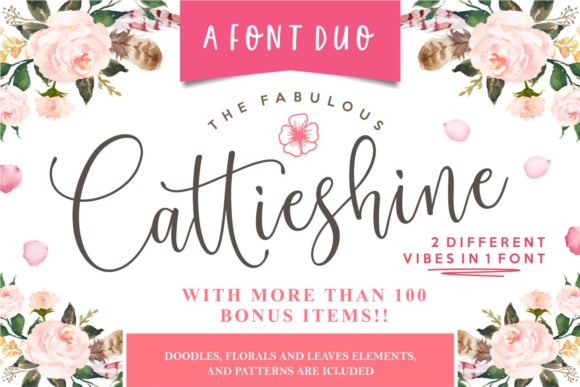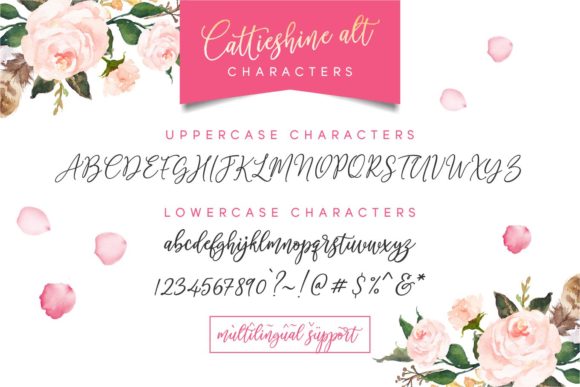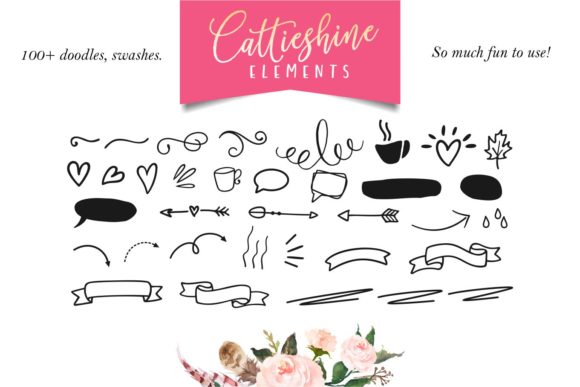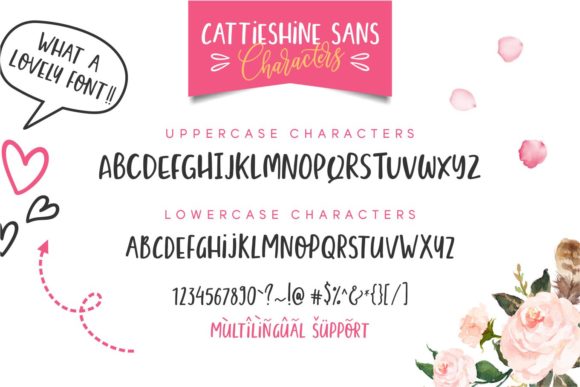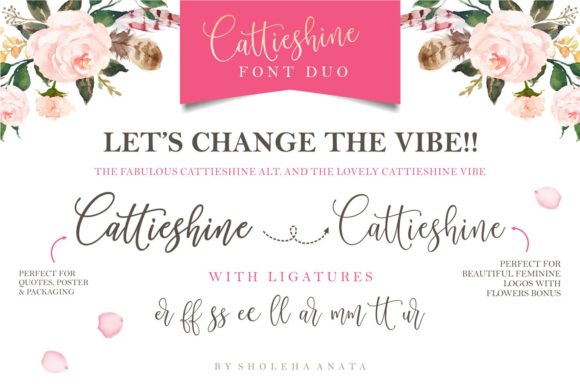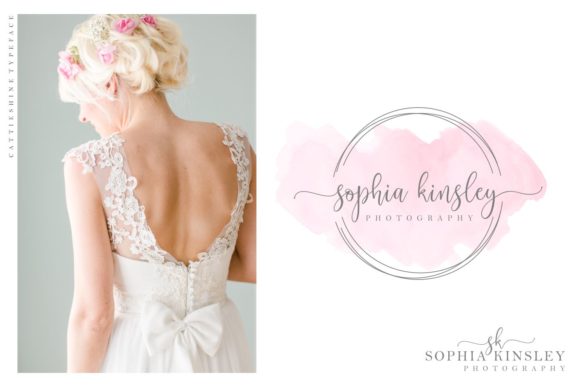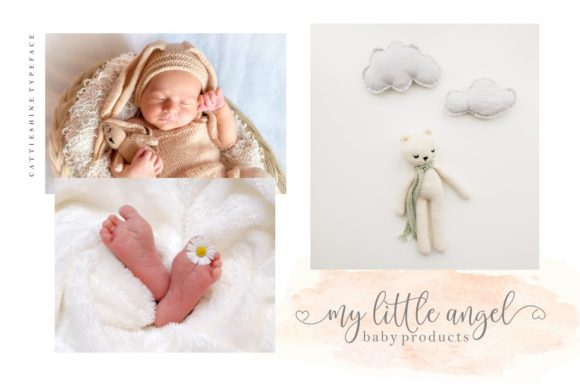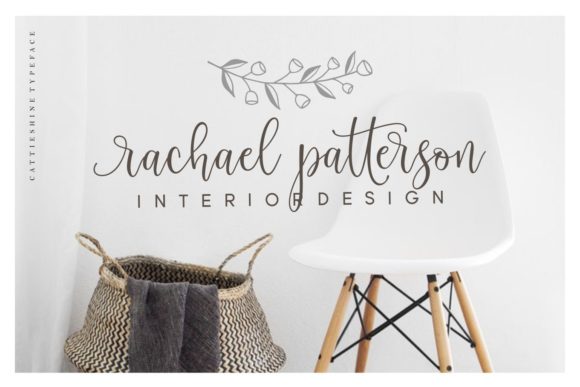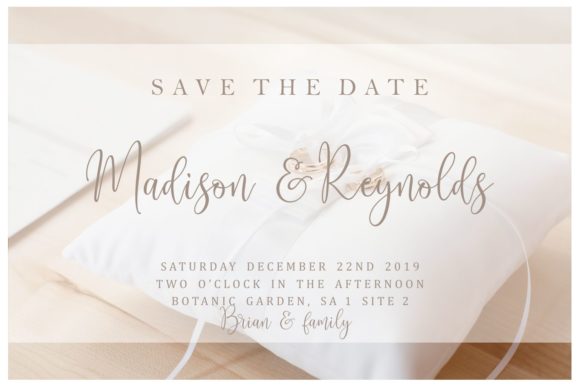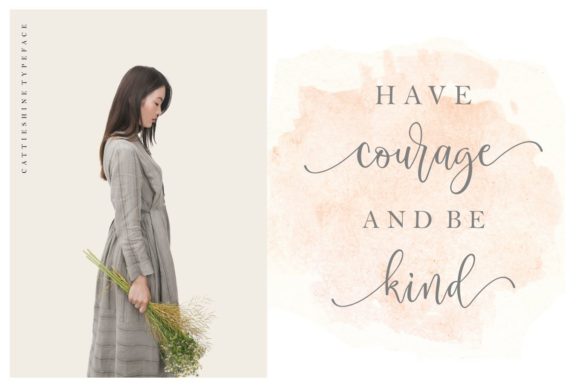
Cattieshine Font
About Cattieshine Font
The Cattieshineis a fun script font. It has an irregular baseline and dancing characters which can be used to give your design an elegant feel. It’s perfect for feminine, elegant, and luxurious designs.